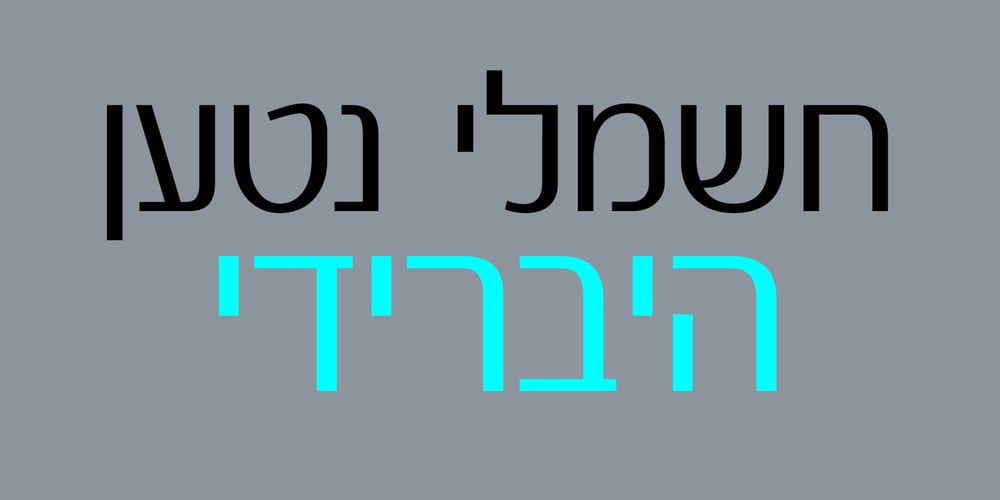
Bicycle MF Font Family was designed by Daniel Levy and published by Masterfont. Bicycle MF contains 1 styles and family package options. Geometric forms make this elegant font family a great companion for invitations and signs, indoor and outdoor.